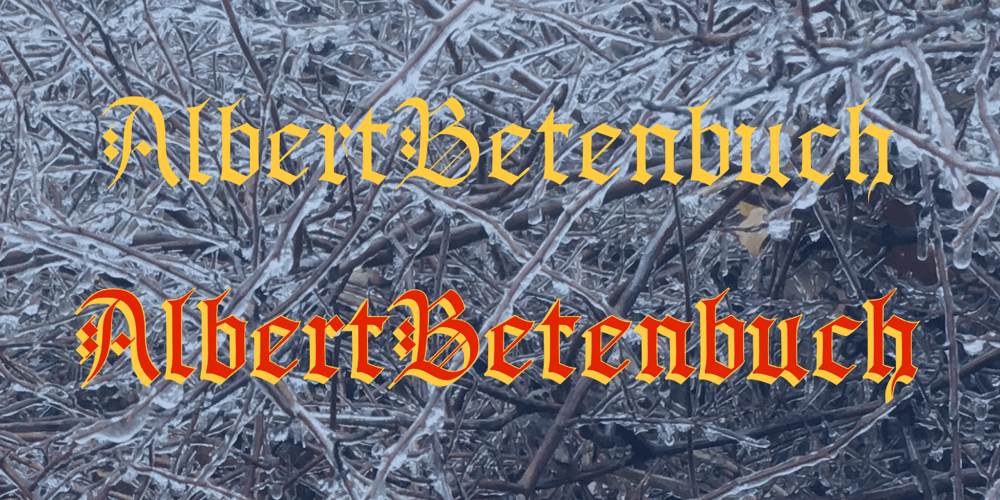
AlbertBetenbuch Font Family was designed by Robert Schenk and published by Ingrimayne Type. AlbertBetenbuch contains 3 styles and family package options. The inspiration for AlbertBetenbuch came from a typeface drawn by Albert Dürer and an interpretation of that face in Arthur Baker’s Historic Calligraphic Alphabets (Dover, 1980). It is not a recreation of either. The characteristic common to AlbertBetenbuch and the faces inspiring it is the decorative zig-zag with the upper-case letters.In late 2018 the inside of the shadowed style was separated out. It looks very much like the plain face but its spacing matches the shadowed version. It can be layered with the shadowed version to easily create two-colored letters.